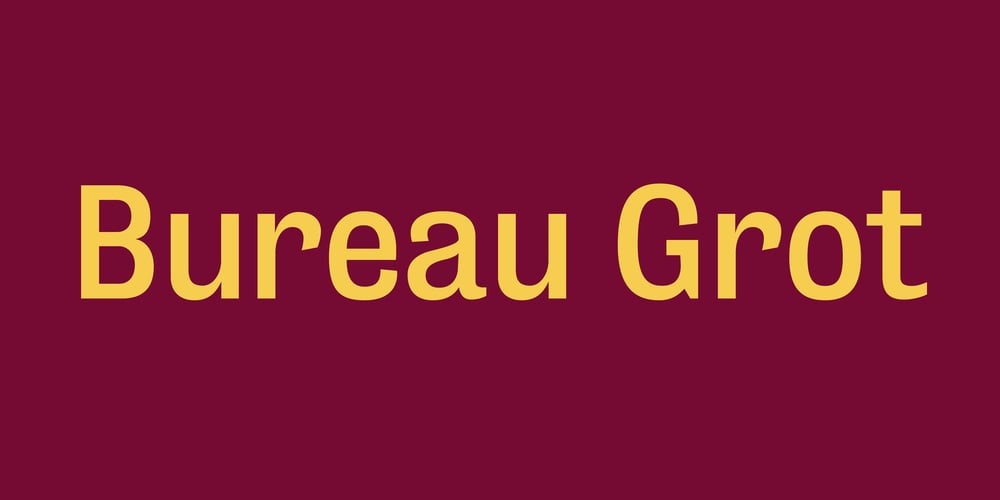
Bureau Grot
Bureau Grot font
Bureau Grot Font Family was designed by Richard Lipton, Jill Pichotta, Christian Schwartz, Stephenson Blake, Roger Black and published by Font Bureau. Bureau Grot contains 27 styles and family package options. Bureau Grot is now accepted as the essence of tooth and character in an English 19th-century sans. The current family was first developed by David Berlow in 1989 from original specimens of the grotesques released by Stephenson Blake in Sheffield. These met with immediate success at the Tribune Companies and Newsweek, who had commissioned custom versions at the behest of Roger Black. Further weights were designed by Berlow for the launches of Entertainment Weekly and the Madrid daily El Sol, bringing the total to twelve styles by 1993. Jill Pichotta, Christian Schwartz, and Richard Lipton expanded the styles further, at which point the family name was shortened from Bureau Grotesque to Bureau Grot; FB 1989–2006